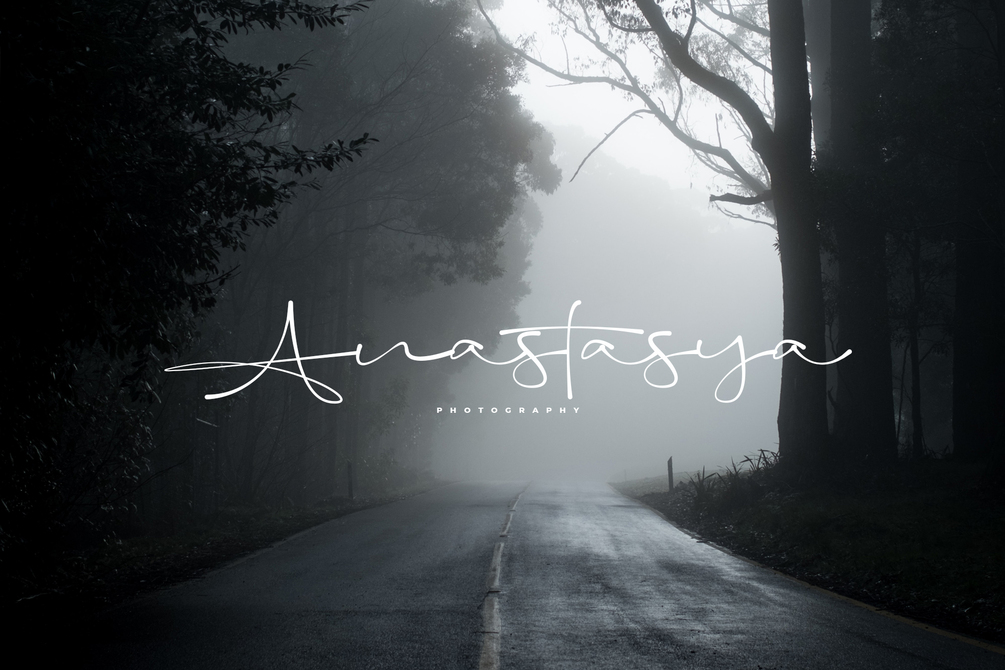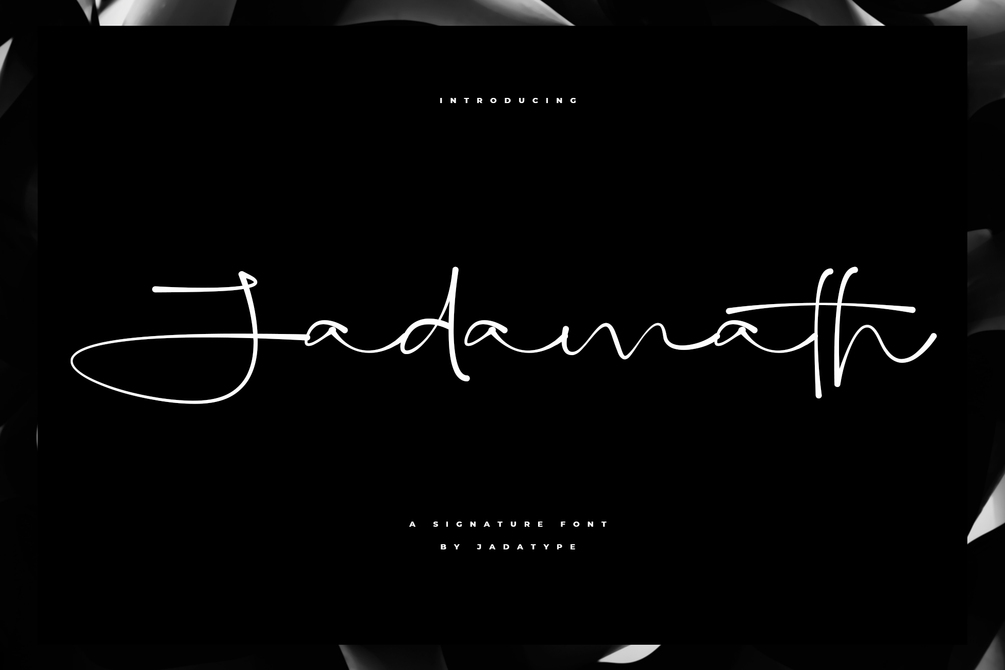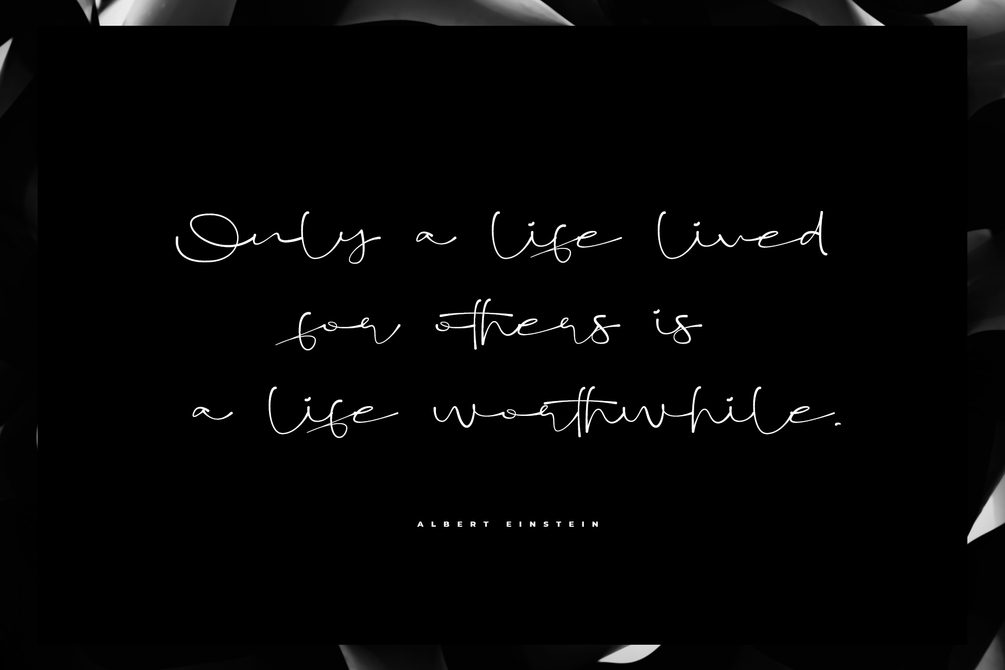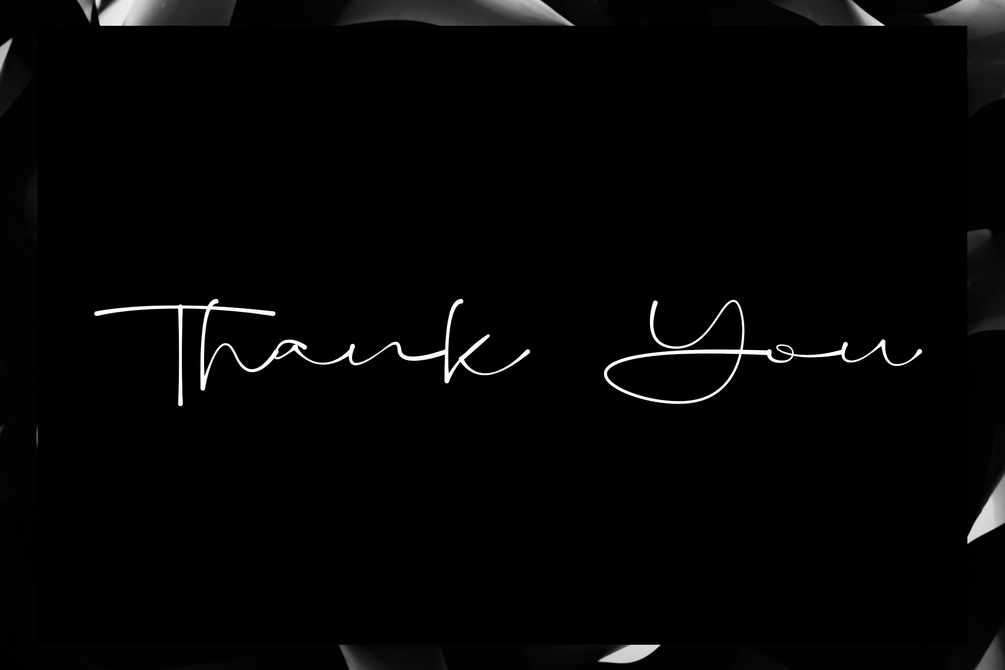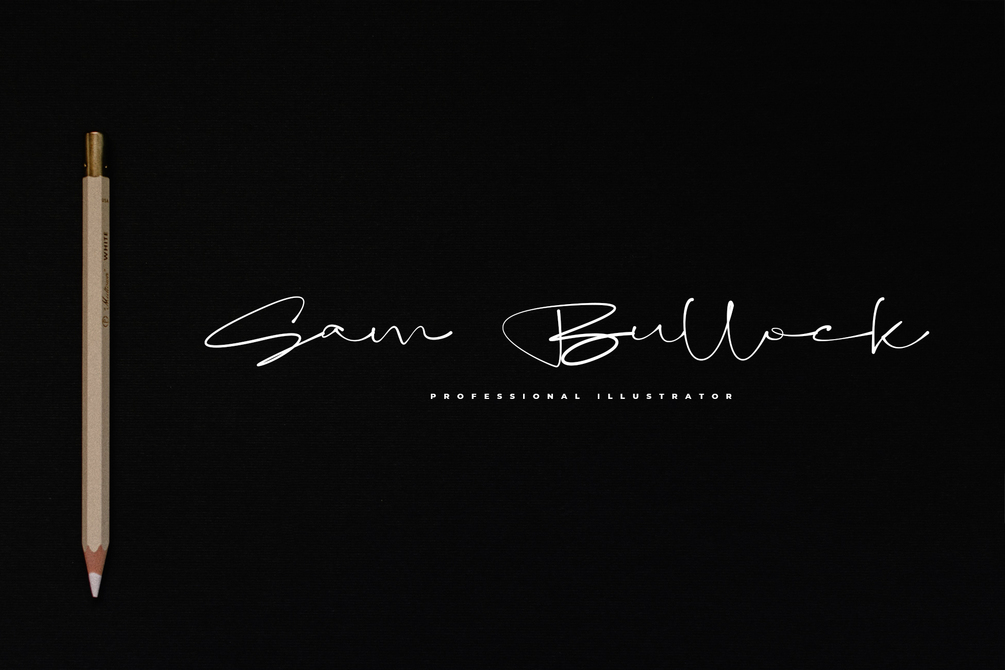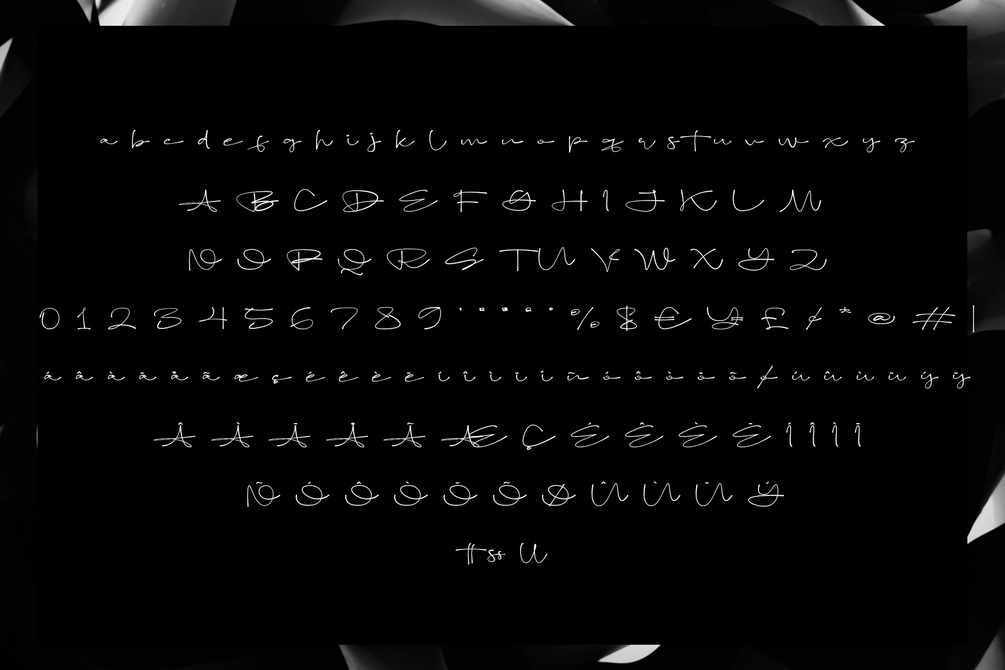
Jadamath Font
Jadamath is a signature style font with elegant lines. suitable for weddings, invitation cards, greeting cards, product design, branding, logotype and so on. contains standard English letters, numbers, punctuation, and several accents that support multilingualism.